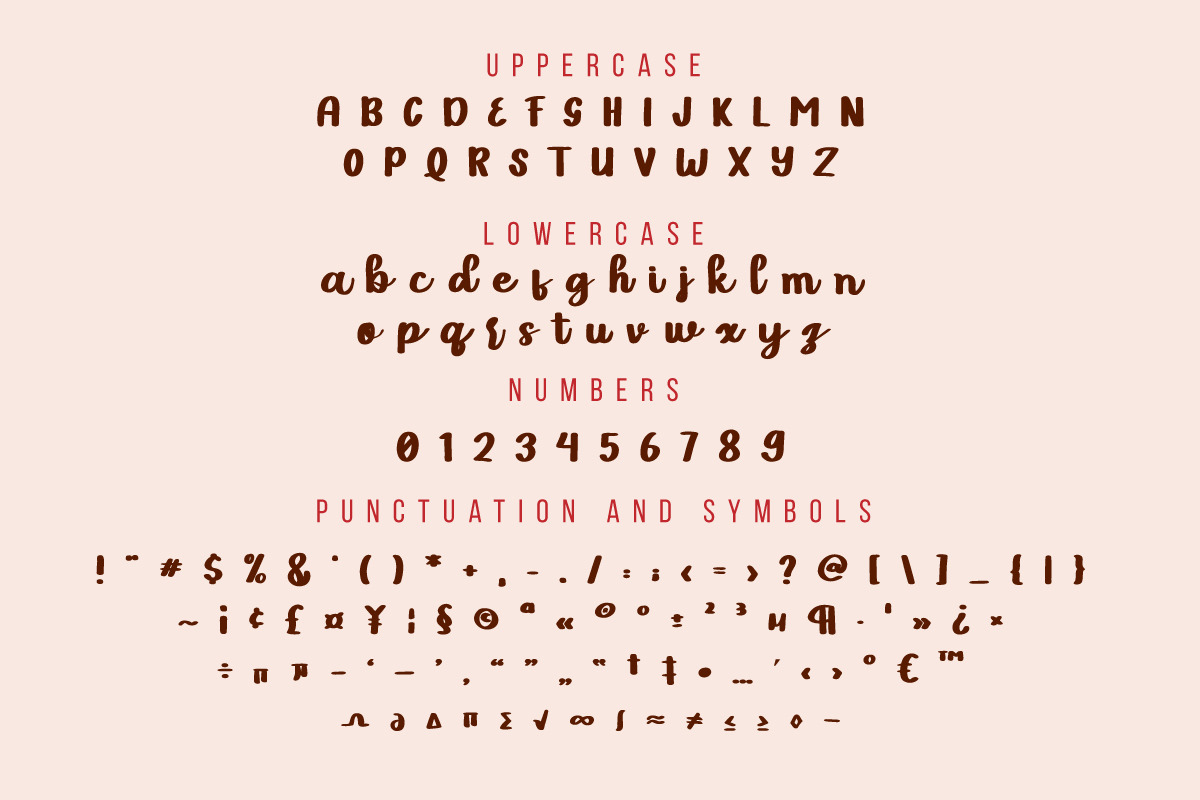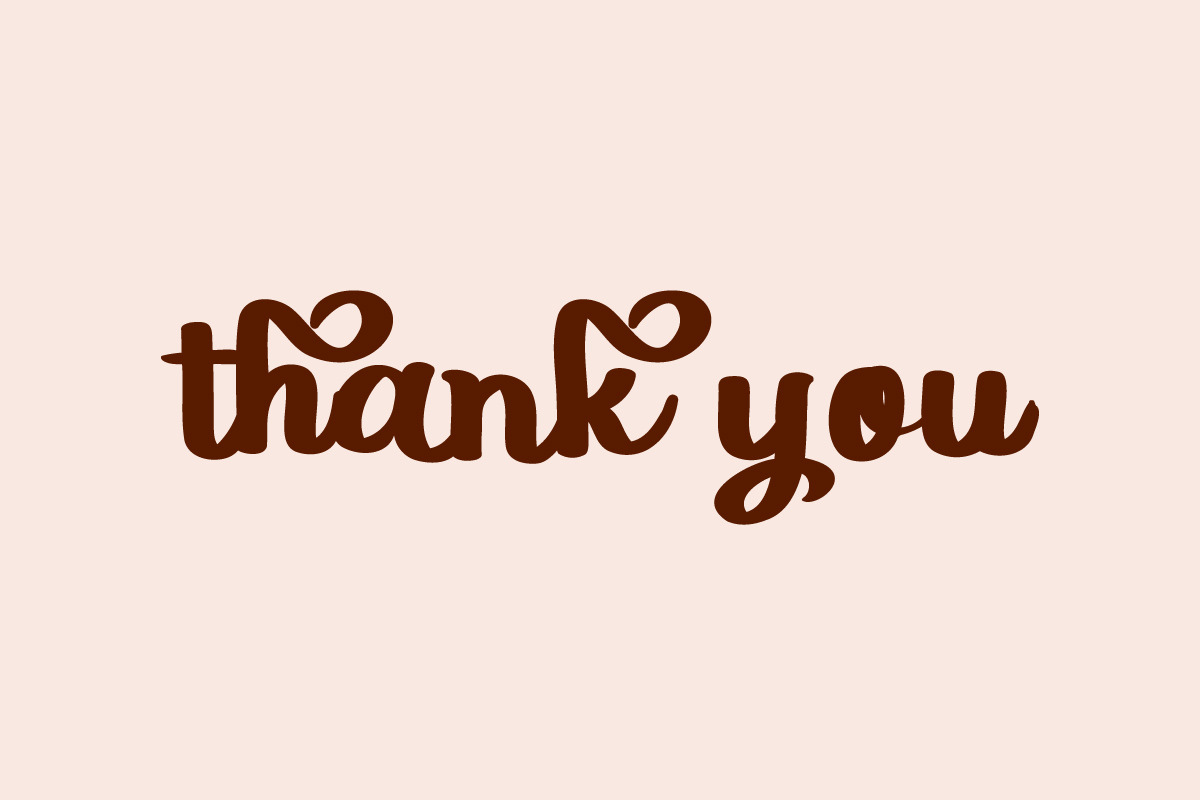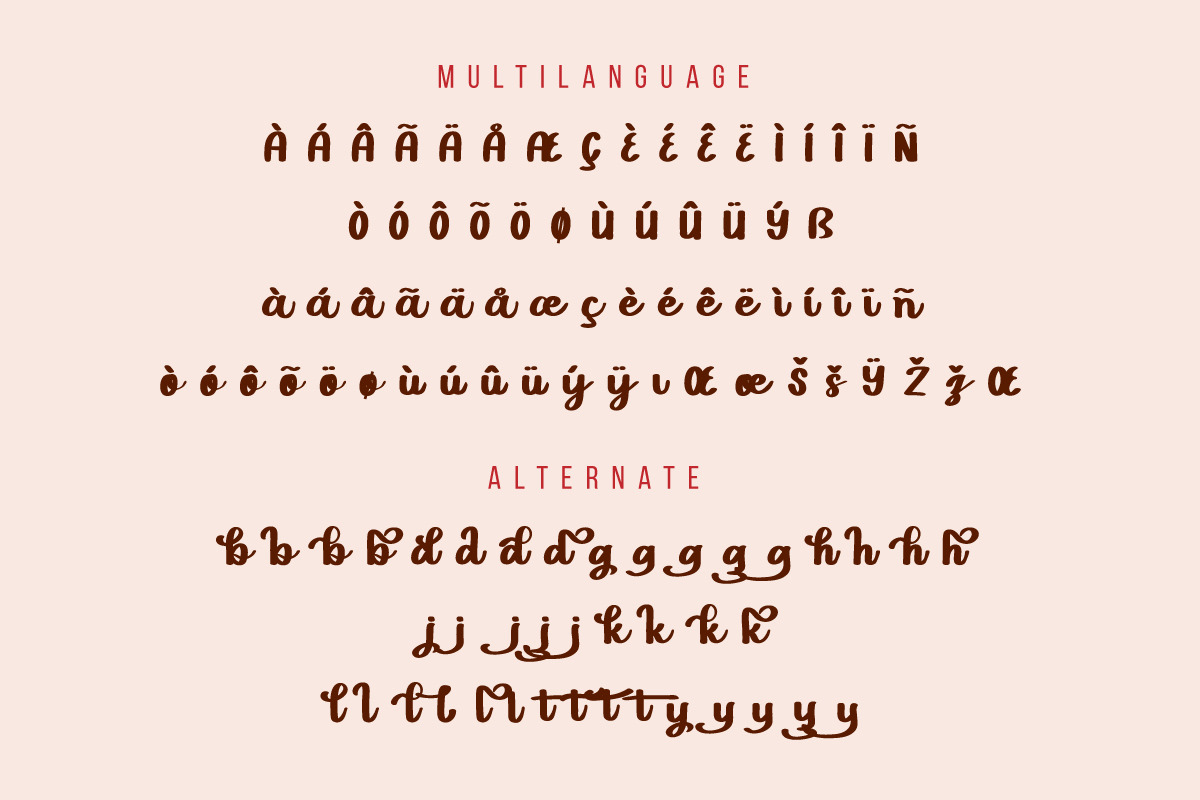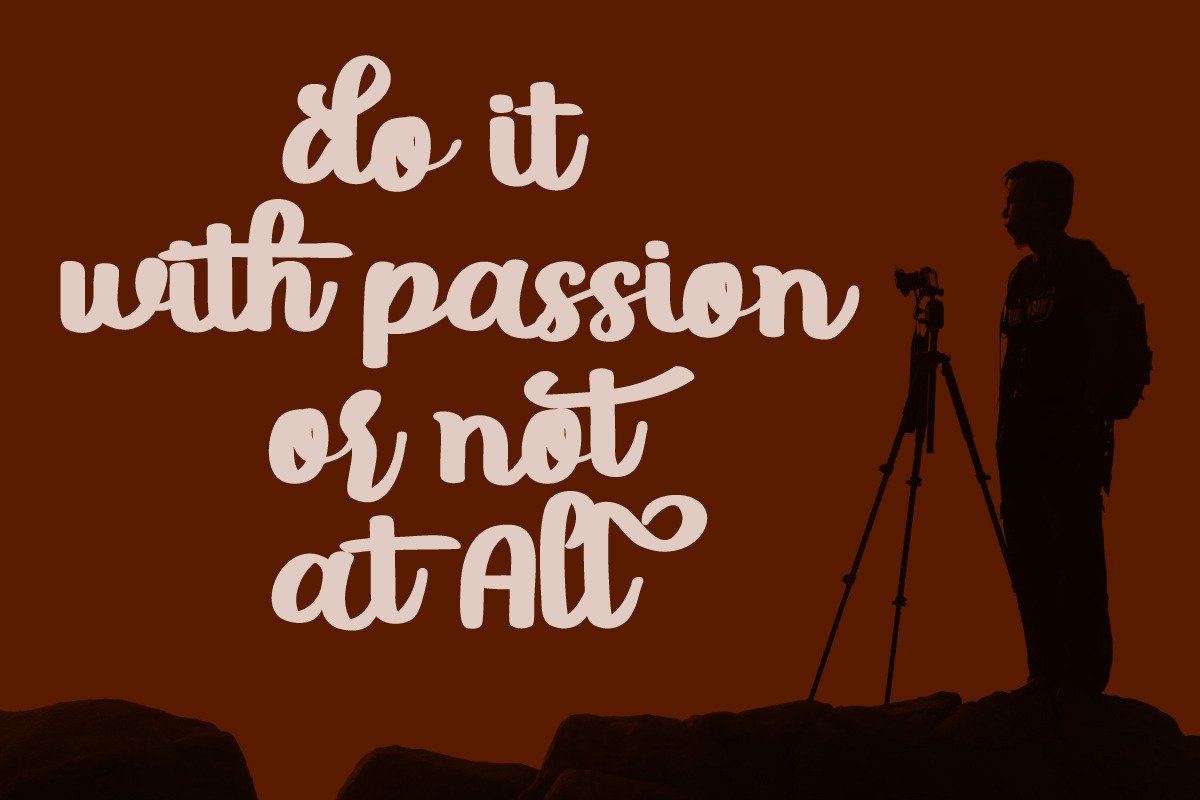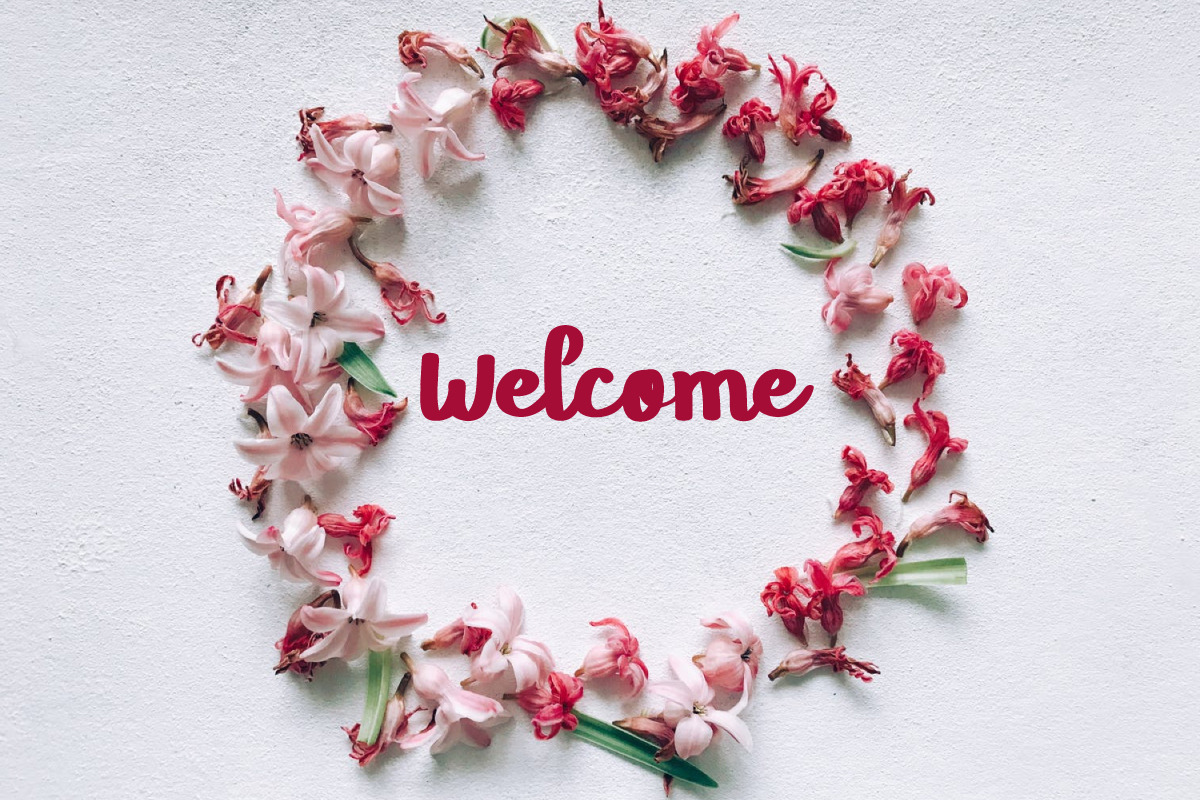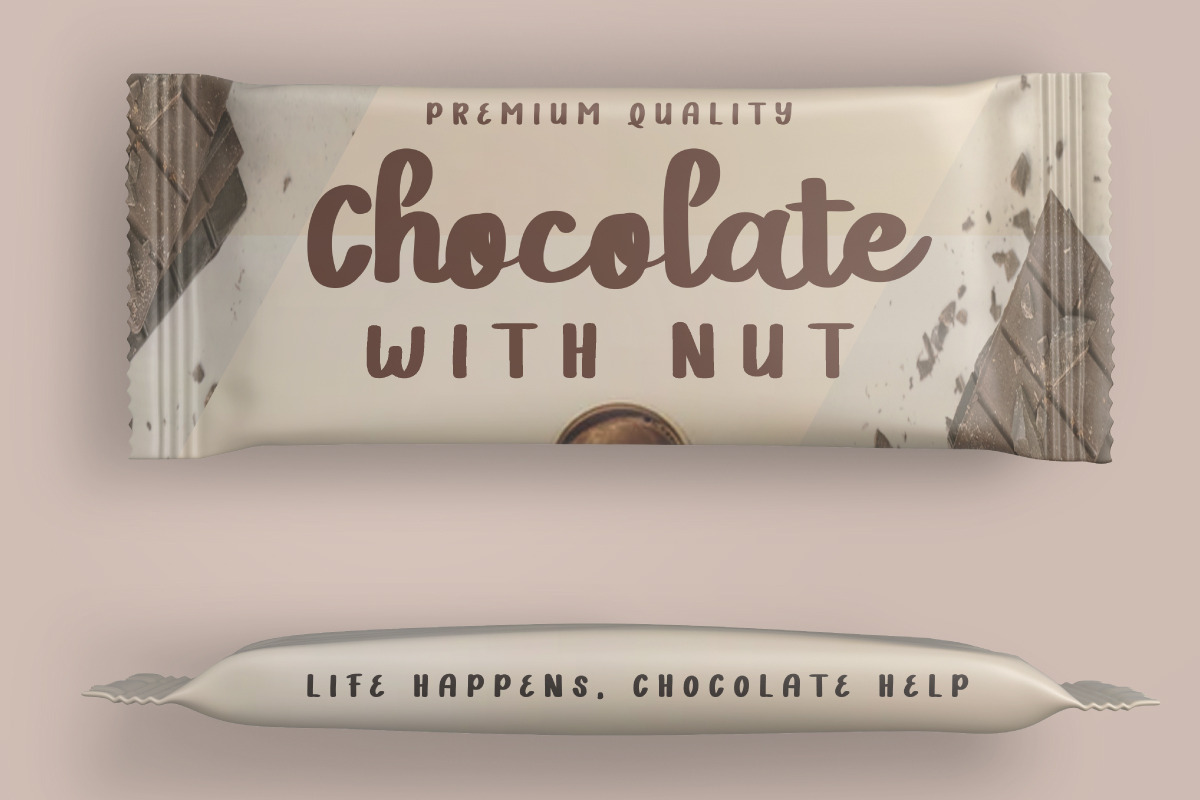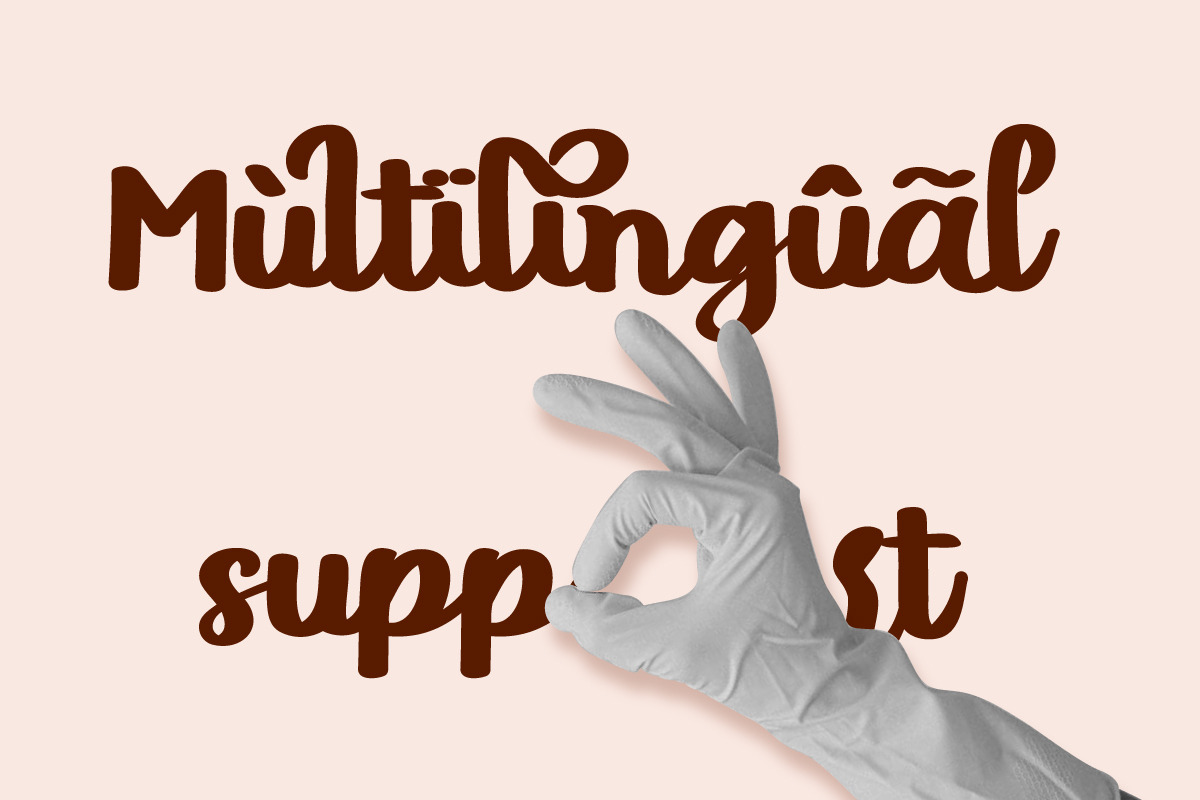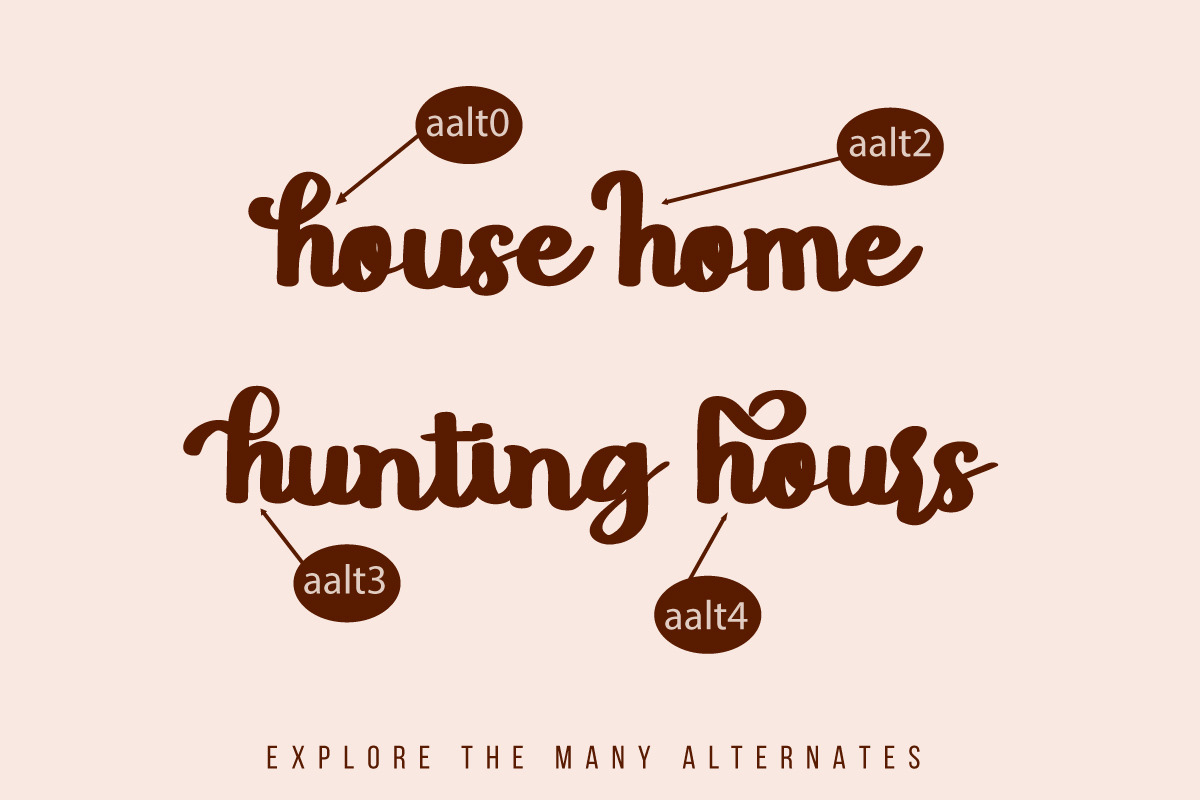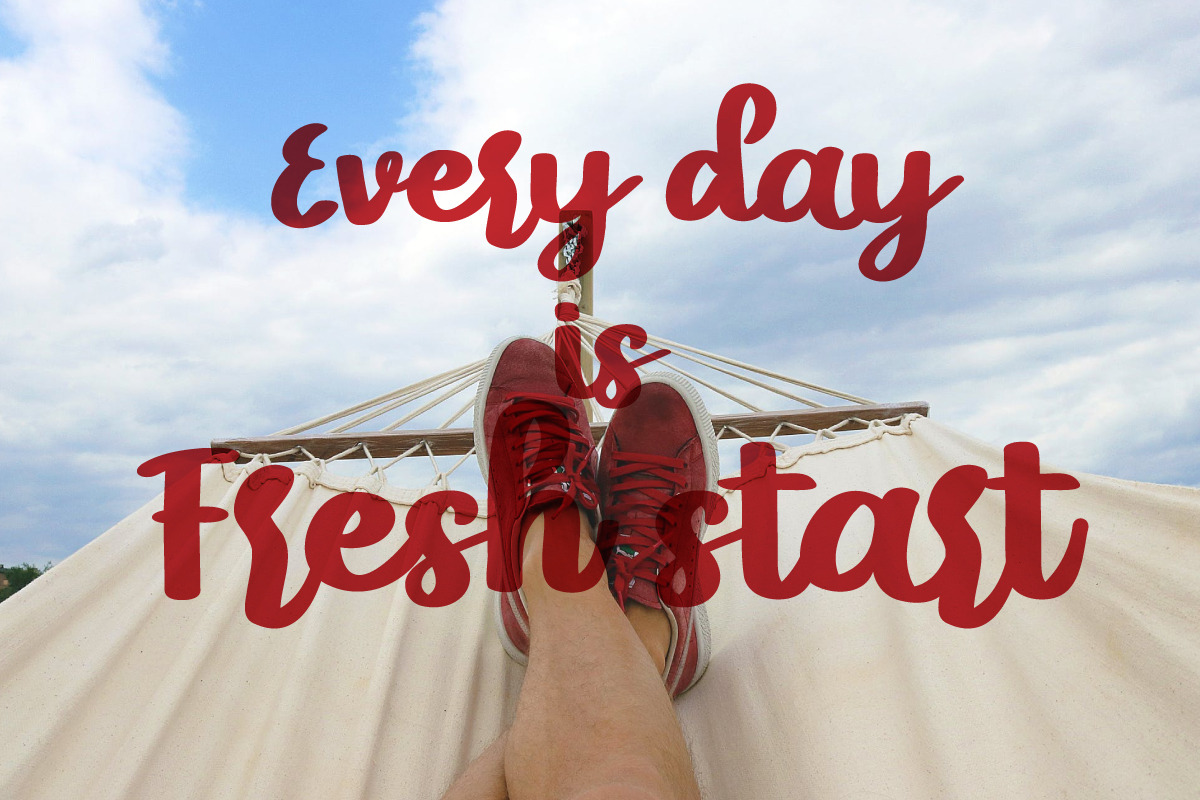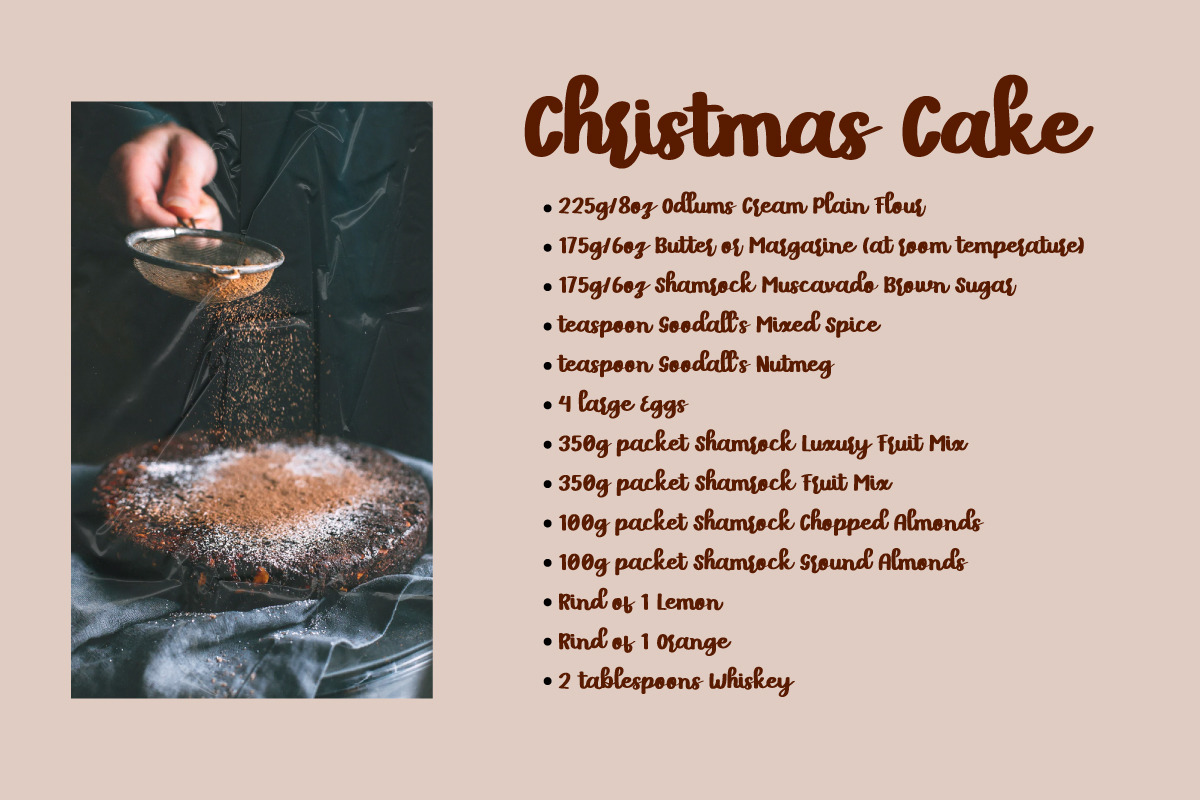
After Butler
After Butler is a lovely and timeless handwritten font. It is the best choice for creating eye catching logos, branding, and quotes. After Butler is PUA encoded which means you can access all of the glyphs and swashes with ease!